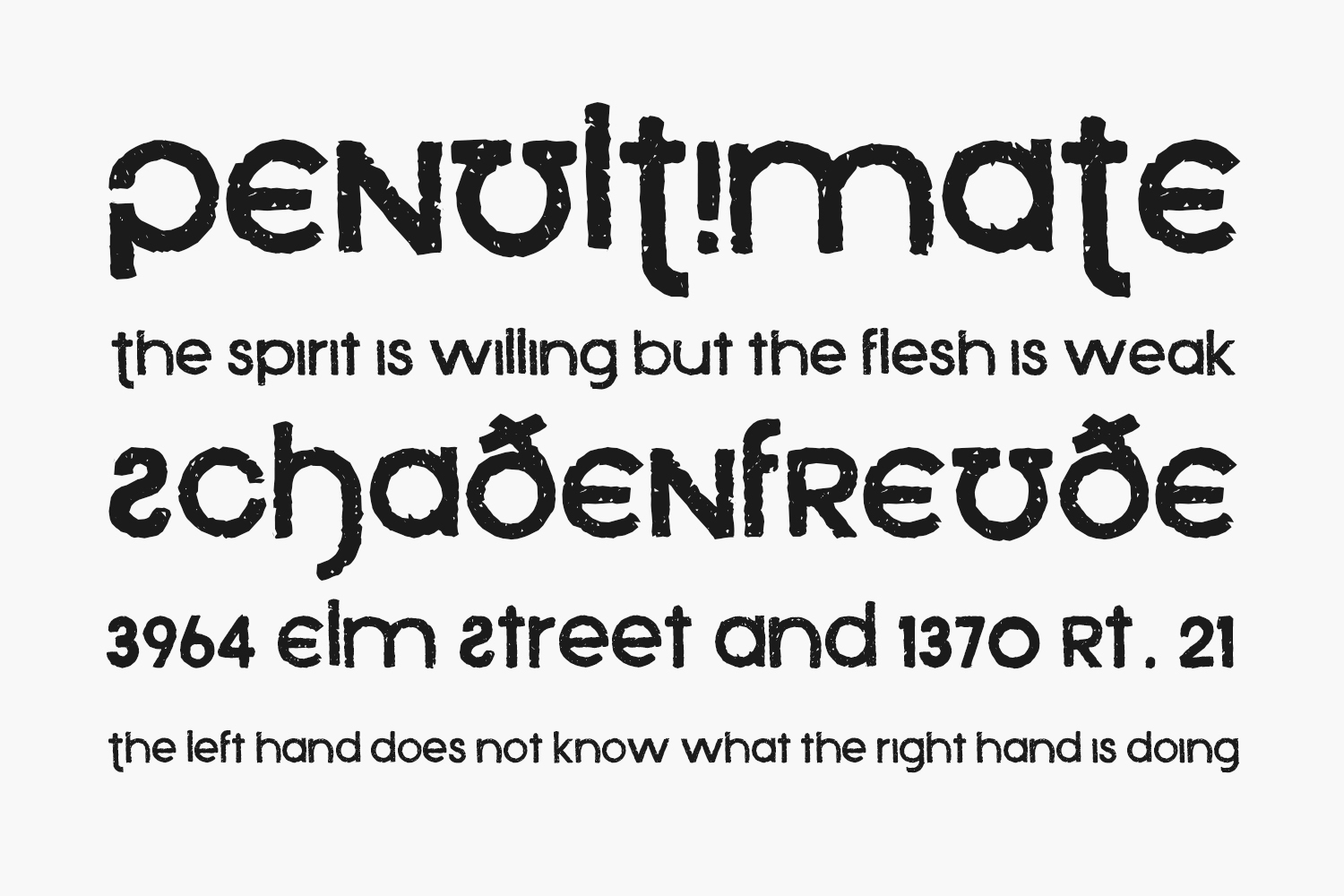
The letters in Xenophone Free Font were created from hand-drawn figures in which American coins were traced around to create curves and circles. Some capitals are meant to resemble symbols from the International Phonetic Alphabet.
Designed by Vic Fieger